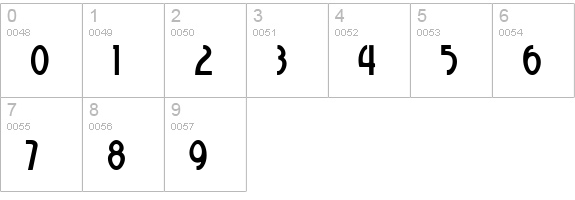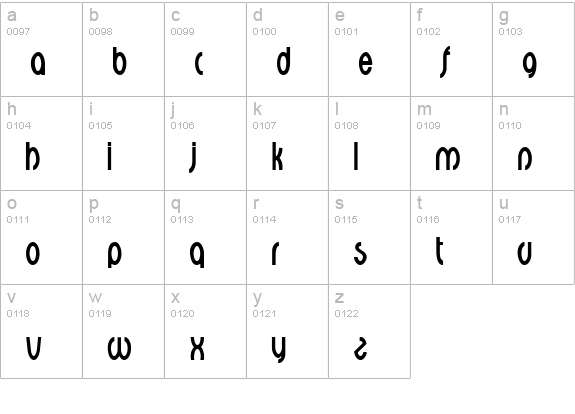
Croix Regular is the standard, neutral variant in the Croix typeface family \xE2\x80\x94 well suited to general body text, paragraphs, and standard typographic work.
Croix Regular font is a versatile and elegant typeface that exudes sophistication and modernity. With its sleek lines and distinctive letterforms, Croix Regular is perfect for a wide range of design projects, from branding to editorial design. This font strikes the perfect balance between readability and style, making it a go-to choice for designers looking to make a statement. What sets Croix Regular apart is not only its impeccable design but also the fact that it is available for free download at FontsMarket.com. This means that you can elevate your projects with this high-quality font without having to spend a penny. Whether you're working on a website, poster, or packaging design, Croix Regular is sure to add a touch of sophistication and class. Download it today and see for yourself the impact it can have on your designs.